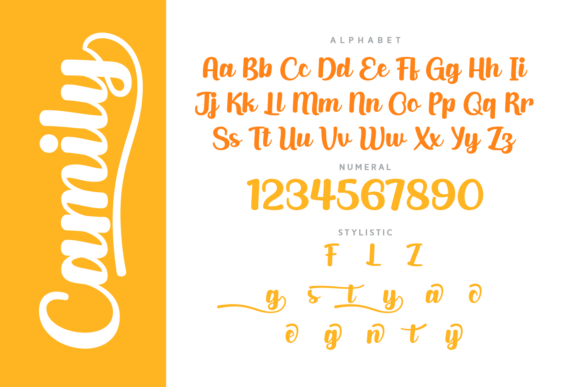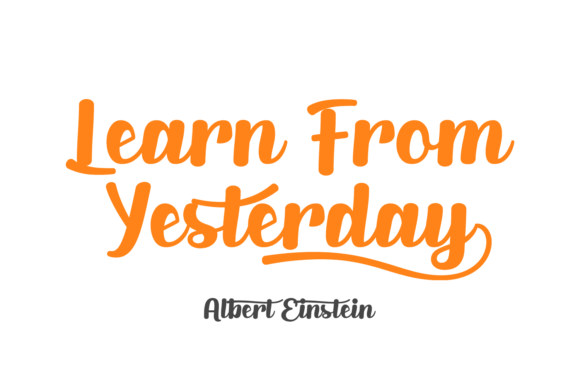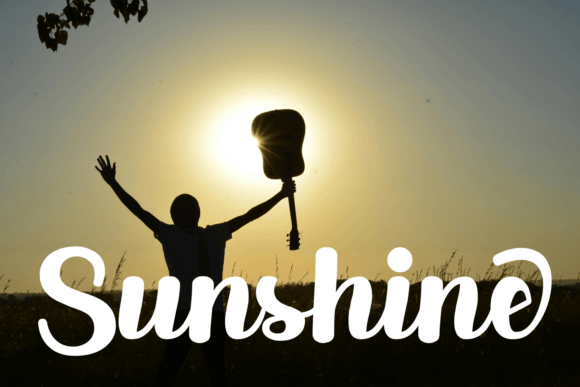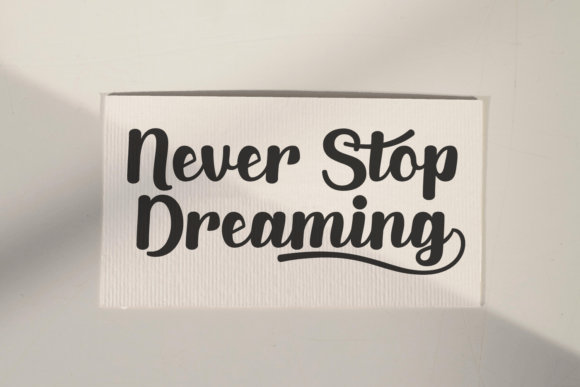
Camily Font: Elevate Your Designs with a Bold and Energetic Handwritten Script
In the world of typography, fonts play a crucial role in conveying the personality and tone of a design. For designers and crafters looking to add a vibrant touch to their projects, Camily Font is an excellent choice. This bold and energetic handwritten script font is designed to grab attention and inject a modern aesthetic into your designs.
The Characteristics of Camily Font
Camily Font boasts smooth curves and dynamic swashes, making it perfect for creating logos, sports themes, product branding, and eye-catching headlines. Its bold outline and modern aesthetic create a strong yet friendly vibe, suitable for a wide range of applications. Whether you’re working on a project that requires a professional tone or a more playful approach, Camily Font is versatile enough to adapt to your needs.
Perfect for Attention-Grabbing Designs
One of the standout features of Camily Font is its ability to command attention. Its bold and energetic personality makes it ideal for designs that need to stand out from the crowd. Whether you’re creating a logo, poster, or social media graphic, Camily Font is sure to make a lasting impression. Its dynamic swashes and smooth curves add a touch of elegance and sophistication, elevating your designs to the next level.
Camily Font’s versatility is one of its most significant advantages. Its modern aesthetic and bold outline make it suitable for a wide range of applications, from professional and corporate designs to more creative and playful projects. Whether you’re working on a branding campaign, packaging design, or website, Camily Font can help you achieve your desired outcome.
Applications of Camily Font
So, where can you use Camily Font? The possibilities are endless! Here are some ideas to get you started:
- Logos: Create a memorable and impactful logo that showcases your brand’s personality.
- Sports Themes: Add a dynamic and energetic touch to your sports-themed designs, such as posters, flyers, and social media graphics.
- Product Branding: Elevate your product branding with a font that exudes confidence and style.
- Headlines: Create eye-catching headlines that grab attention and draw readers in.
Why Choose Camily Font?
With so many fonts available, why choose Camily Font? Here are just a few reasons why designers and crafters love this font:
- Unique Personality: Camily Font has a distinct personality that sets it apart from other fonts.
- High-Quality Design: This font is designed with precision and attention to detail, ensuring a high-quality finish.
- Easy to Read: Despite its bold and energetic personality, Camily Font is easy to read, making it perfect for body text and headlines.
Tips for Using Camily Font
To get the most out of Camily Font, here are some tips to keep in mind:
- Experiment with Sizes: Camily Font looks great in a variety of sizes, from small body text to large headlines.
- Play with Colors: Don’t be afraid to experiment with different colors and gradients to add depth and interest to your designs.
- Pair with Other Fonts: Camily Font pairs well with a range of other fonts, so don’t be afraid to get creative and try out different combinations.
In conclusion, Camily Font is an excellent choice for designers and crafters looking to add a bold and energetic touch to their projects. Its smooth curves, dynamic swashes, and modern aesthetic make it perfect for a wide range of applications, from logos and sports themes to product branding and eye-catching headlines. With its versatility, unique personality, and high-quality design, Camily Font is sure to elevate your designs to the next level.